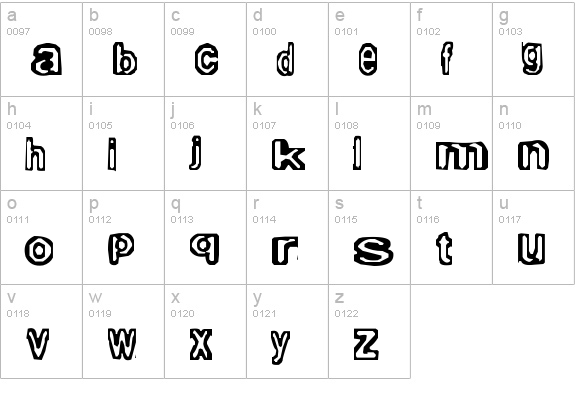
Amateur Lobotomy Font Details
Amateur Lobotomy font is a quirky and unique typeface that exudes a playful and hand-drawn feel. With its irregular shapes and uneven lines, this font is perfect for adding a touch of whimsy to your designs. Whether you're creating posters, invitations, or social media graphics, Amateur Lobotomy will surely catch the eye of your audience. The best part? This font is completely free to download at FontsMarket.com. Simply head over to the website to get your hands on this one-of-a-kind typeface and start incorporating it into your projects today. Let your creativity shine with Amateur Lobotomy font!